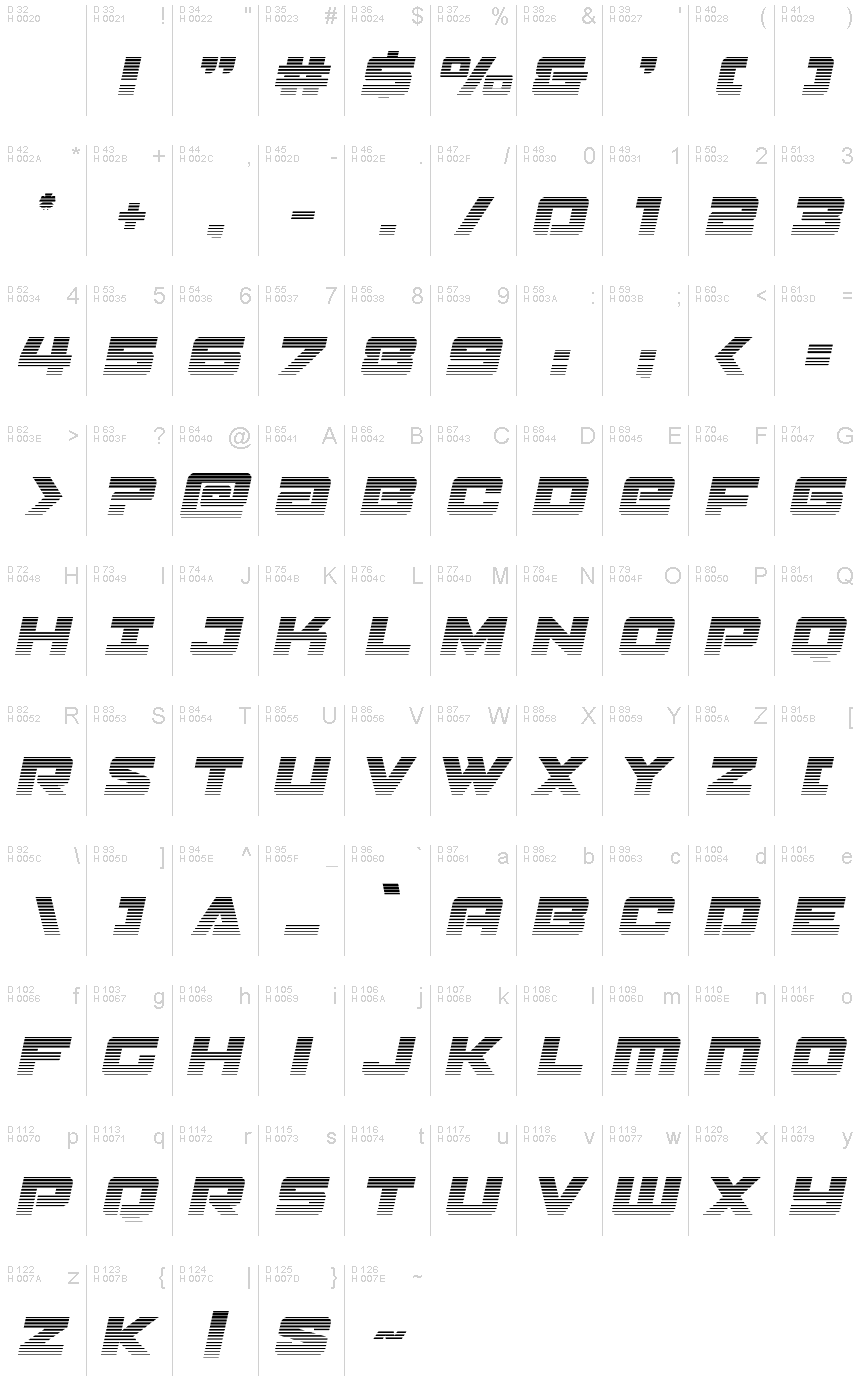
Power Broker Gradient 2 Italic
Power Broker Gradient 2 Italic, from the Power Broker font family designed by Iconian Fonts, is a display typeface that commands attention with its futuristic flair. Its extra-bold weight paired with an extra-expanded width forges a dominant presence on any canvas. The italicized stance adds a dynamic edge, propelling the text forward with momentum and energy.
The gradient effect infused within each character enhances the three-dimensional feel, suggesting depth and movement that are quintessential for high-impact visuals. This stylistic choice makes it an ideal candidate for projects that aim to stand out, from cutting-edge tech presentations to bold marketing materials or striking titles in digital media.
The Power Broker Gradient 2 Italic's aesthetic appeal lies in its ability to merge assertiveness with sophistication. Its versatility extends to various creative endeavors where a statement of strength and modernity is essential. Whether utilized in gaming interfaces, film titles, or innovative branding projects, this font is poised to leave a lasting impression with its contemporary elegance and robust design.
The gradient effect infused within each character enhances the three-dimensional feel, suggesting depth and movement that are quintessential for high-impact visuals. This stylistic choice makes it an ideal candidate for projects that aim to stand out, from cutting-edge tech presentations to bold marketing materials or striking titles in digital media.
The Power Broker Gradient 2 Italic's aesthetic appeal lies in its ability to merge assertiveness with sophistication. Its versatility extends to various creative endeavors where a statement of strength and modernity is essential. Whether utilized in gaming interfaces, film titles, or innovative branding projects, this font is poised to leave a lasting impression with its contemporary elegance and robust design.